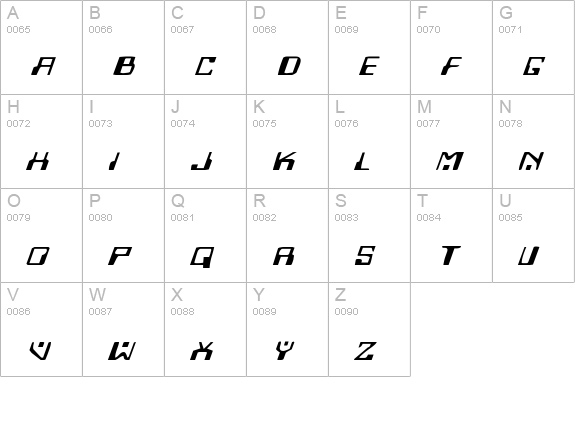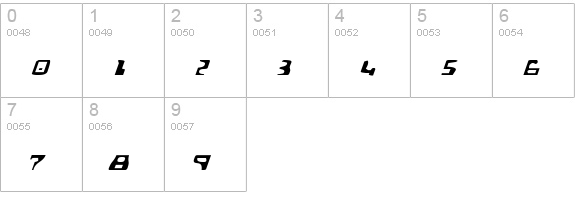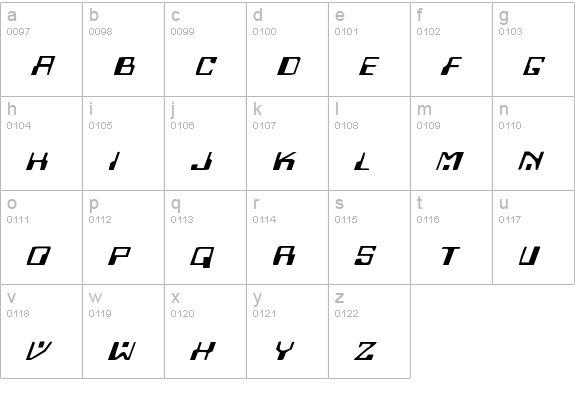
Homemade Robot Expanded Italic is a distinctive, extended-width, italic variant in the Homemade typeface family \xE2\x80\x94 well suited to design and typography projects.
Homemade Robot Expanded Italic font is a charming and whimsical typeface that exudes a playful and futuristic vibe. Its unique design features elongated and slanted letterforms that add a dynamic and energetic touch to any project. This font is perfect for creating eye-catching headlines, posters, branding materials, and more. Best of all, Homemade Robot Expanded Italic font is completely free to download at FontsMarket.com. With its distinctive style and easy accessibility, this font is a must-have for any designer looking to make a bold statement with their typography. Download it today and unleash your creativity with this fun and versatile typeface.